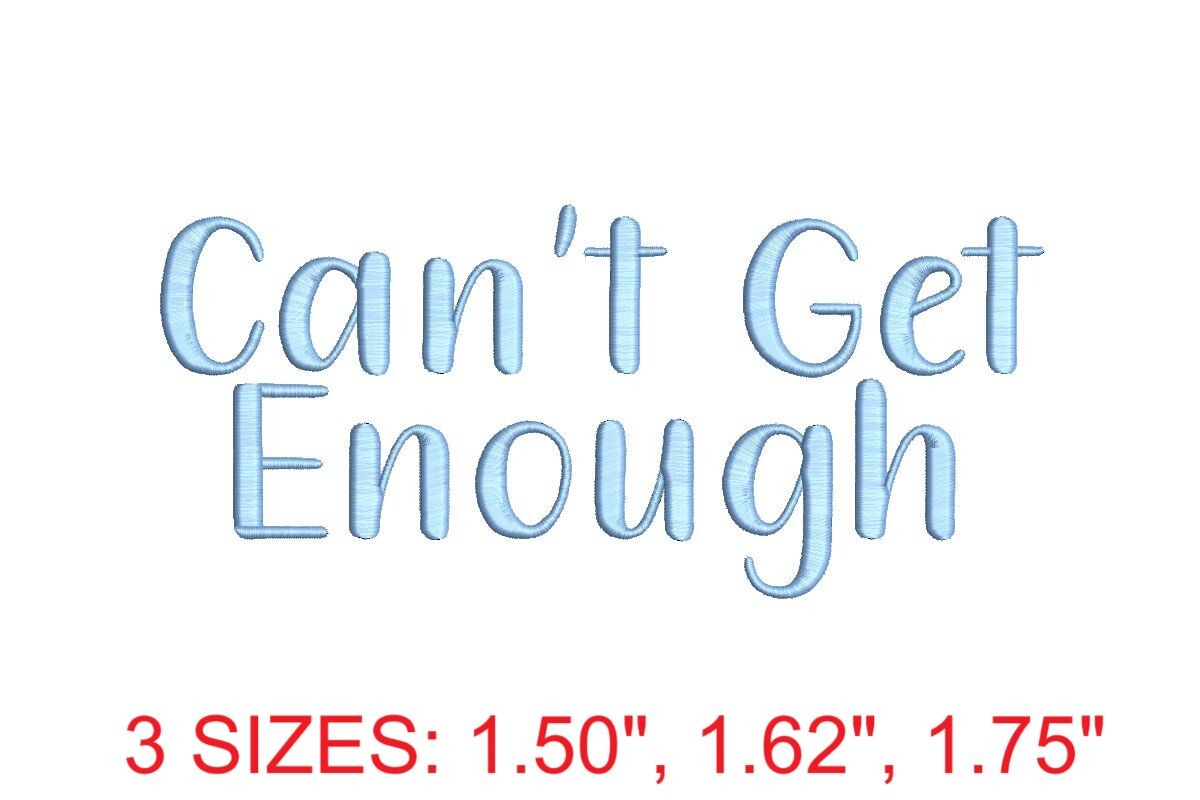
Can't Get Enough Embroidery Font
Can't Get Enough Embroidery Font. This versatile font adds a touch of sophistication and creativity to your designs. Perfect for personalizing clothing, accessories, home decor, and more. Can't Get Enough offers a wide range of lettering options, from elegant script to bold and playful styles, ensuring your projects stand out. Whether you're crafting custom gifts, enhancing your wardrobe, or adding flair to home items, this font is a must-have. Make your creations unforgettable with Can't Get Enough today! Please note: The sizes and stitches information shown below is for "A" and "a" in each size. This is provided as a summary of what is available in this download file. For the full dimension details of the 156 letters in this set, click on the More Sewing Info (PDF) button on this page. This machine embroidery design comes with multiple embroidery file formats and can be used with multiple embroidery machines.